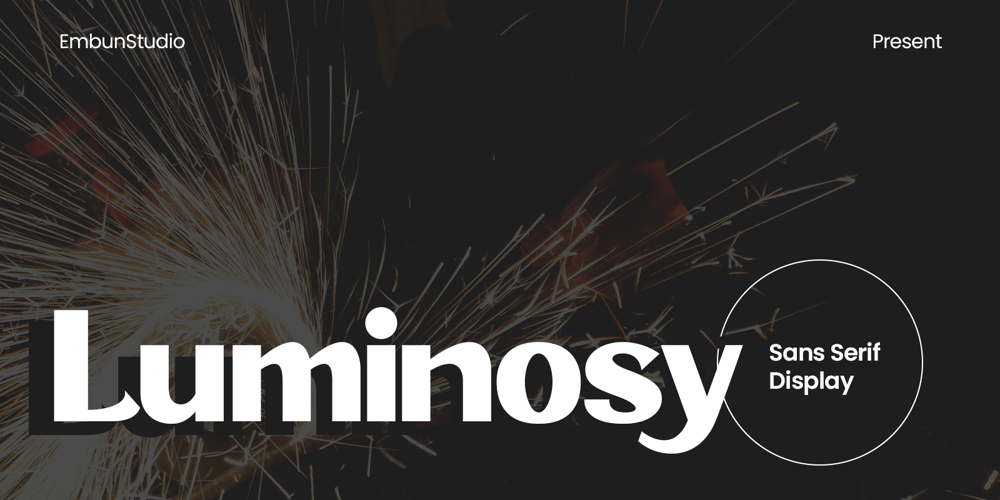
Luminosy Font Family was designed by Aditya Rezki Apriyadi and published by EmbunStudio2018. Luminosy contains 1 styles and family package options. Introducing “Luminosy” a sleek and versatile display font meticulously crafted to enhance any design project by spotlighting its core content. This sans serif typeface exudes modernity and clarity, making it ideal for a wide range of applications from digital interfaces to print media.-Whether gracing the pages of a magazine spread, adorning a website interface, or enhancing a brand identity, Luminosy Sans adapts seamlessly to various design contexts. Its versatility shines through in headlines, banners, logos, and any instance where clarity and impact are paramount. The font’s robust character set and multiple weights provide designers with ample creative freedom to experiment while maintaining visual consistency.-Luminosy Sans is not just a font; it’s a tool that enhances the impact of your content, ensuring that your message stands out with elegance and clarity. Embrace its versatility and let it elevate your designs to new heights of visual excellence.